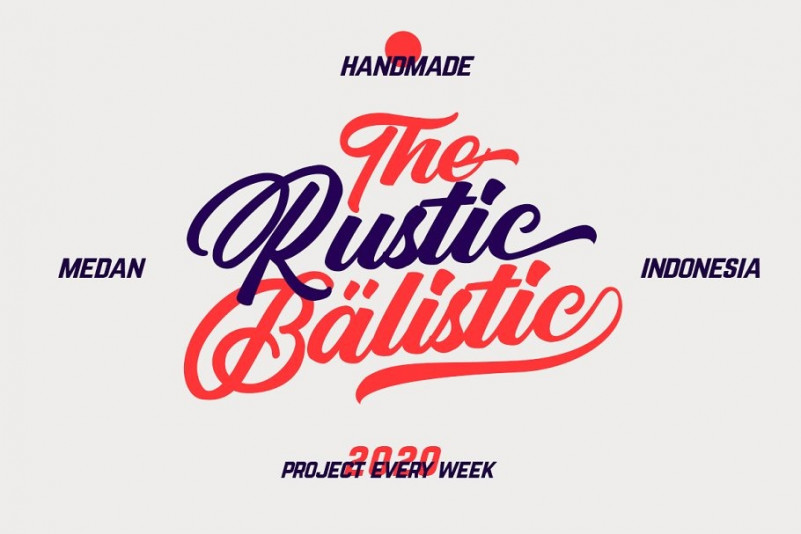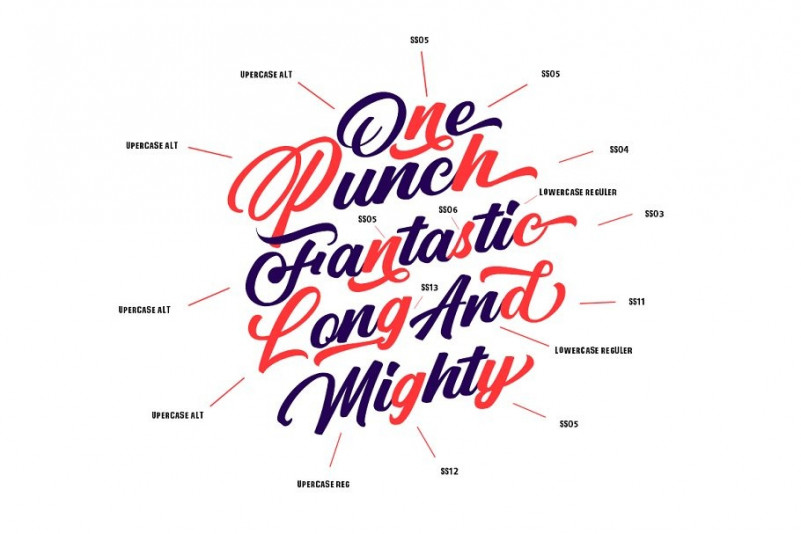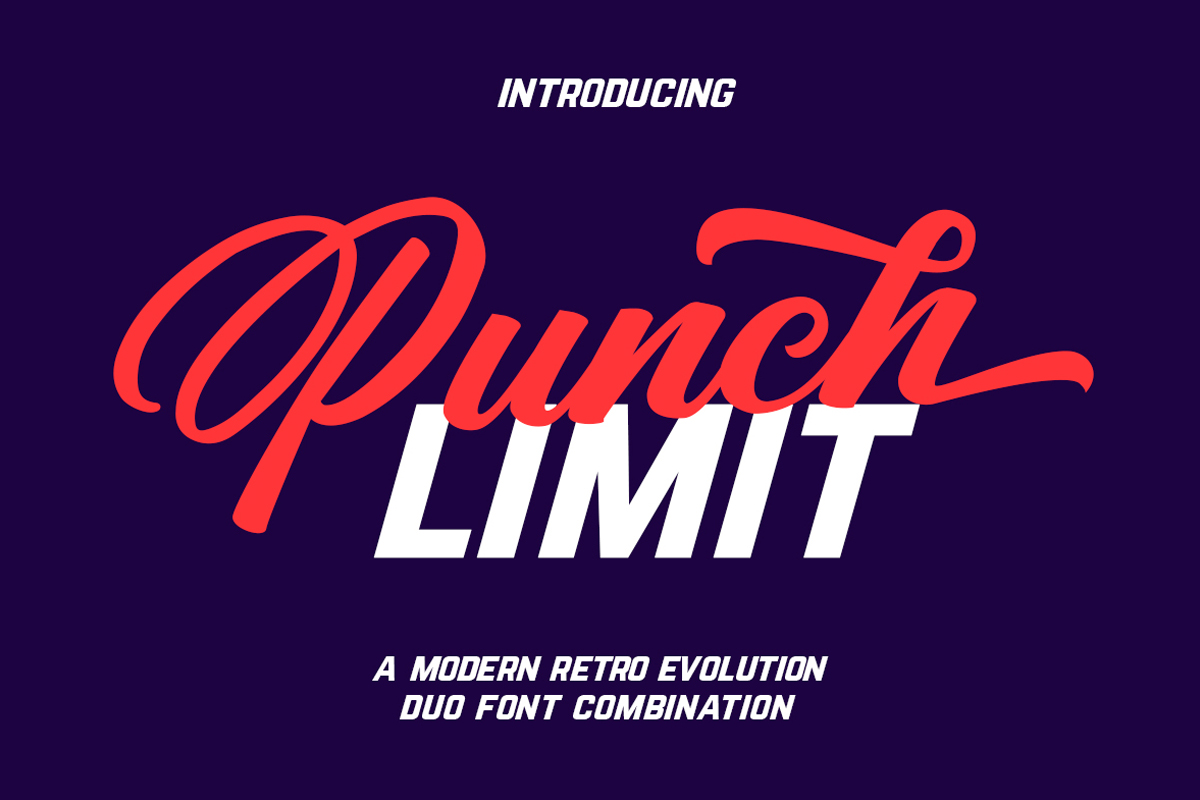
Punch Limit is a dynamic font duo bringing together a gorgeous font and an elegant Oblique sans serif font which complement each other perfectly.
It will look especially great on any gaming or sport-themed projects!
This flexible script typeface includes many alternatives ranging from different ss01-ss15 to each uppercase letter.
It’s fun to use because every word can be changed to your liking and combined with sans serif oblique it looks rerto and classic.
These fonts work very well for websites, game, sport billboards, logos, making artwork for designs, labels, badges, clothing designs, etc.